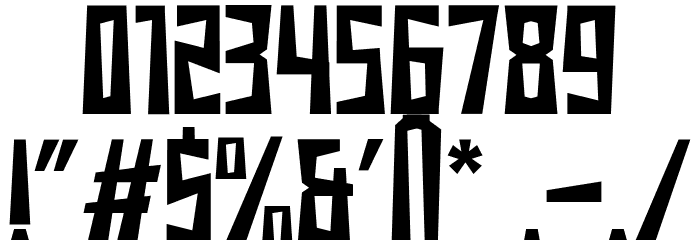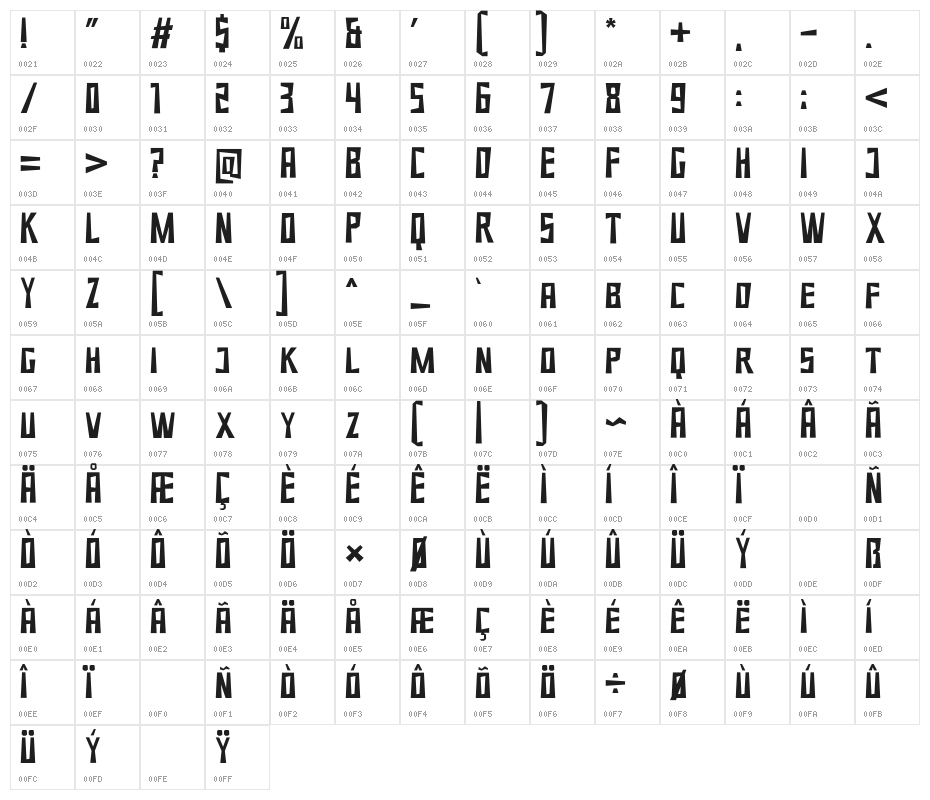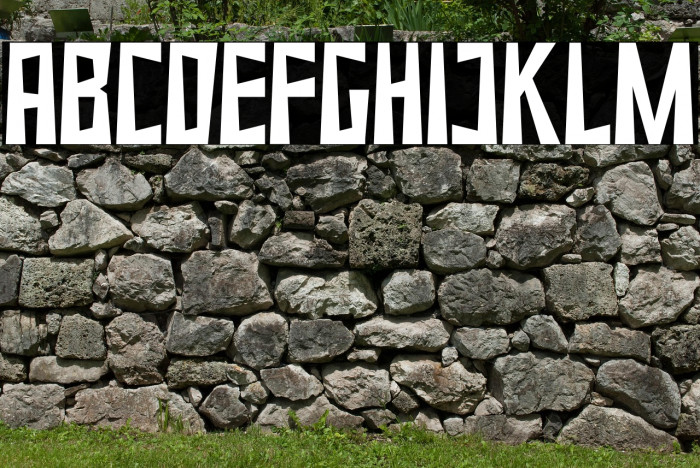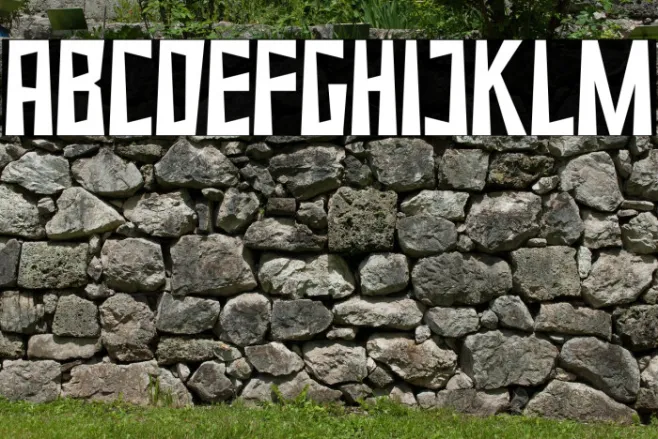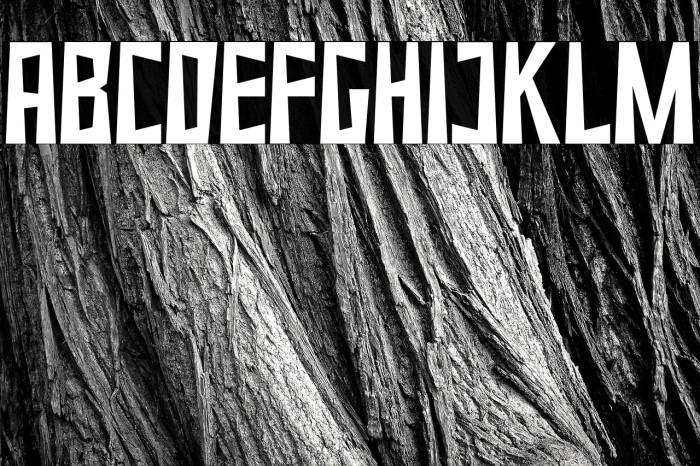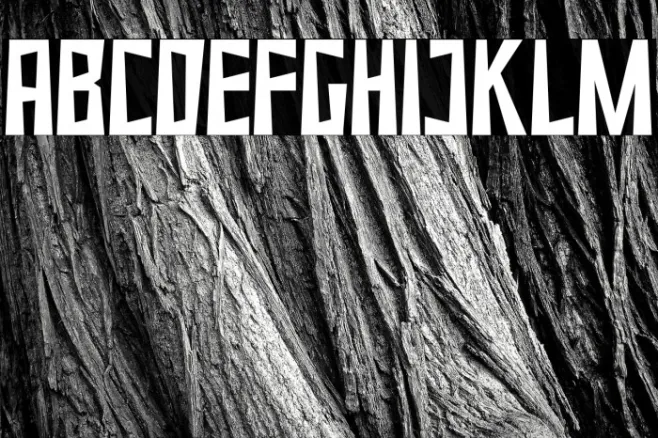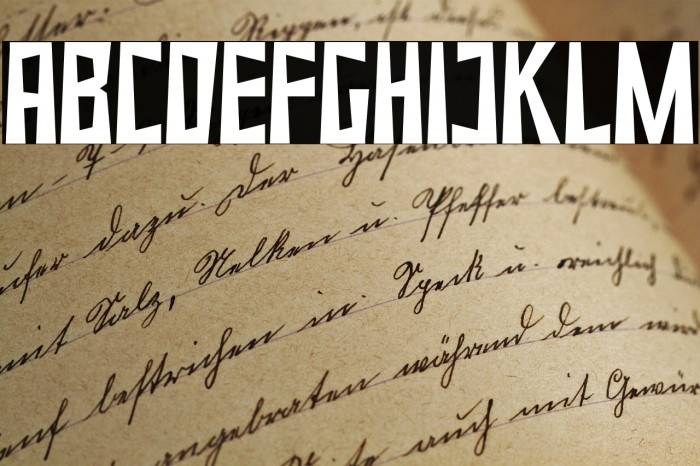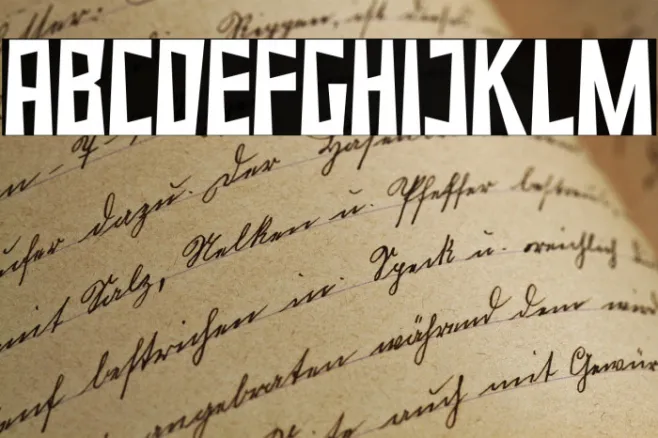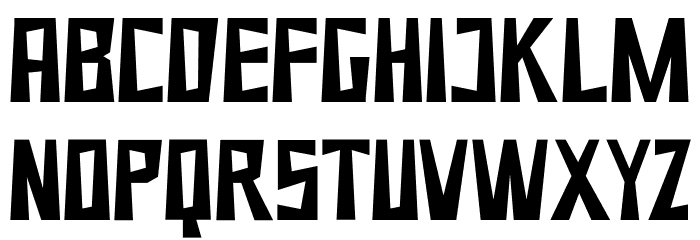
Shocked Up Font
Shocked Up Description
This font features a bold and dynamic design with sharp, angular edges that give it a striking and energetic appearance. The characters are tall and narrow, with a slightly condensed width that enhances their boldness. The uppercase letters are particularly prominent, with a geometric style that adds a modern and edgy feel. The numbers and special characters maintain the same bold and angular aesthetic, ensuring consistency across all glyphs. This font's unique style makes it stand out, making it ideal for attention-grabbing designs.
| Proposed Projects | Ideal for posters, headlines, branding, and any project requiring a bold, eye-catching typeface. |